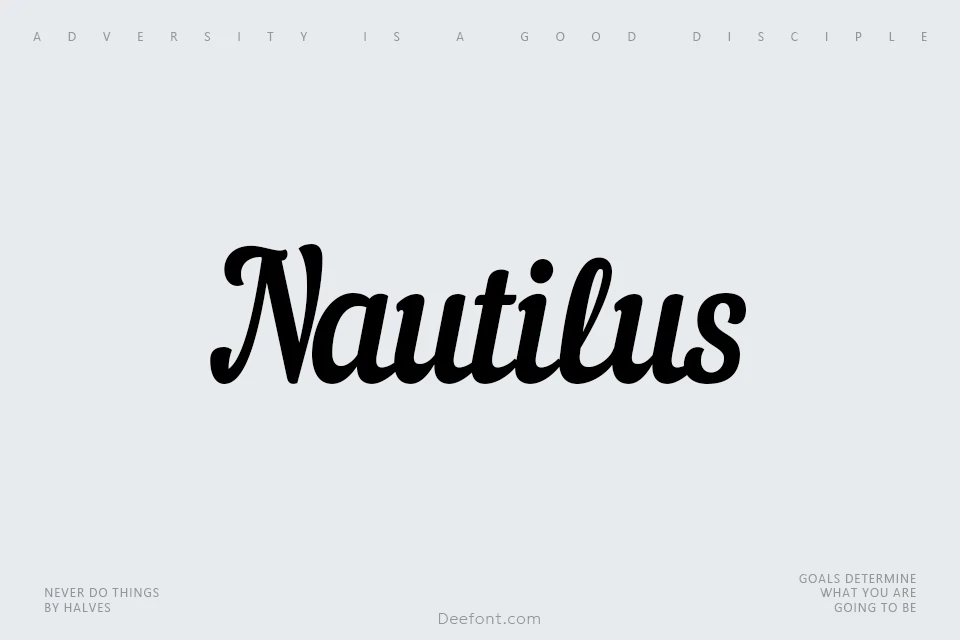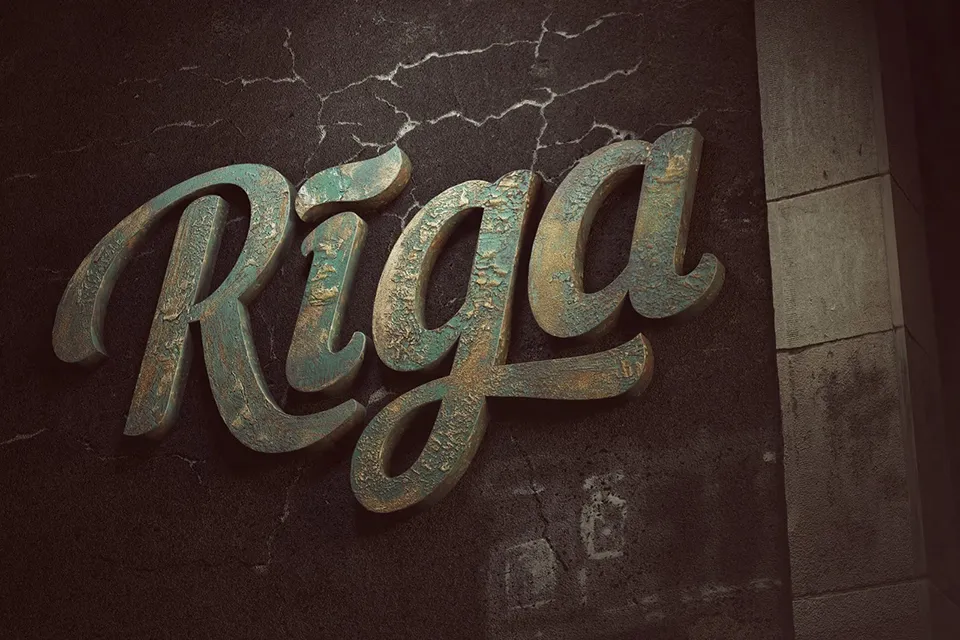
Nautilus Pompilius Font
Nautilus Pompilius Font is a modern, elegant script font designed by PUNK YOU BRANDS. It features smooth contrast and is ideal for use in headings, logos, posters, and other prominent visual elements. This font is available for both Latin and Cyrillic scripts, making it versatile for various design projects. Its cursive style adds a touch of sophistication and creativity to any visual content. Nautilus Pompilius Font is free for commercial use and has been widely downloaded and appreciated for its clean and refined aesthetic. It is licensed under the SIL Open Font License (OFL).